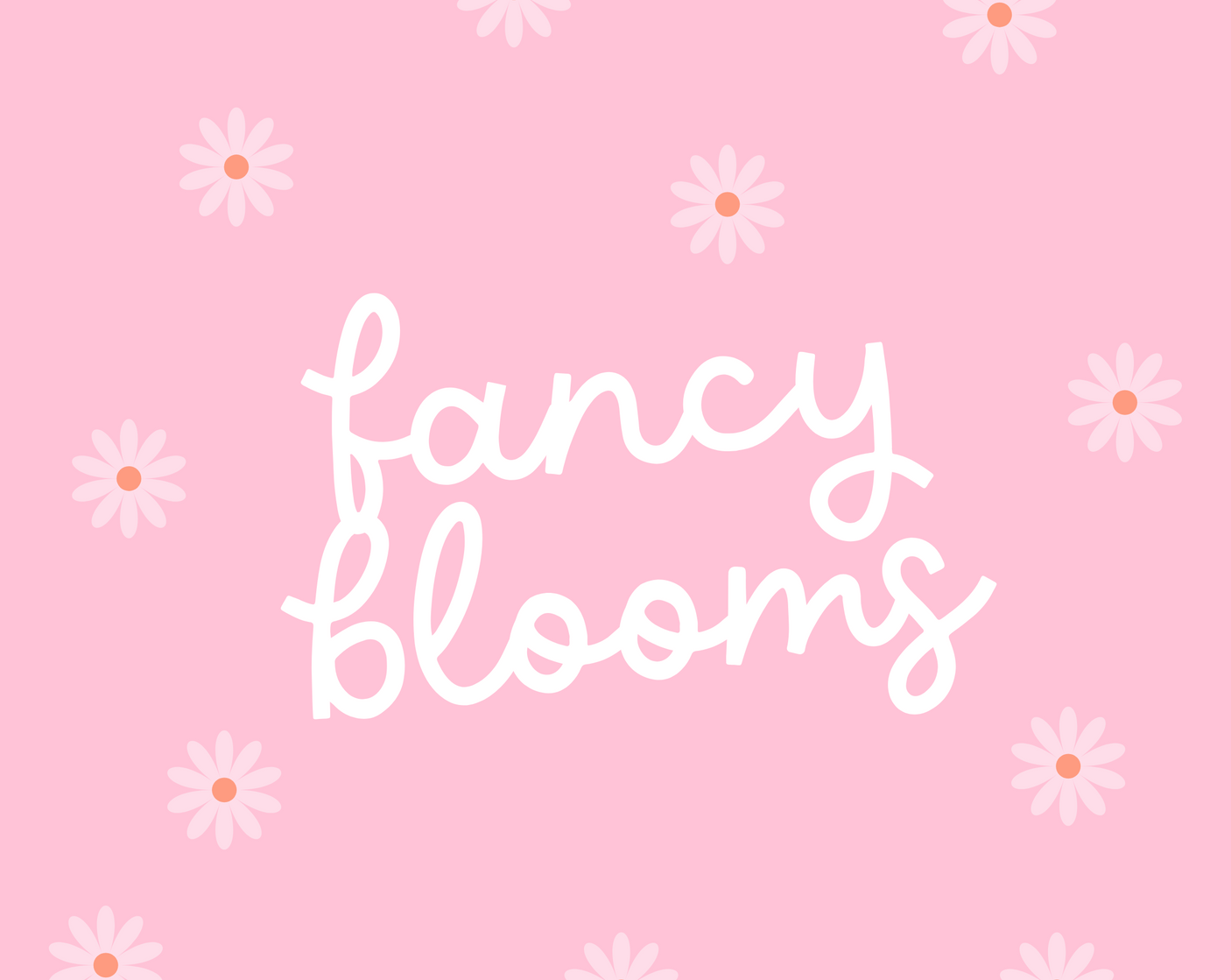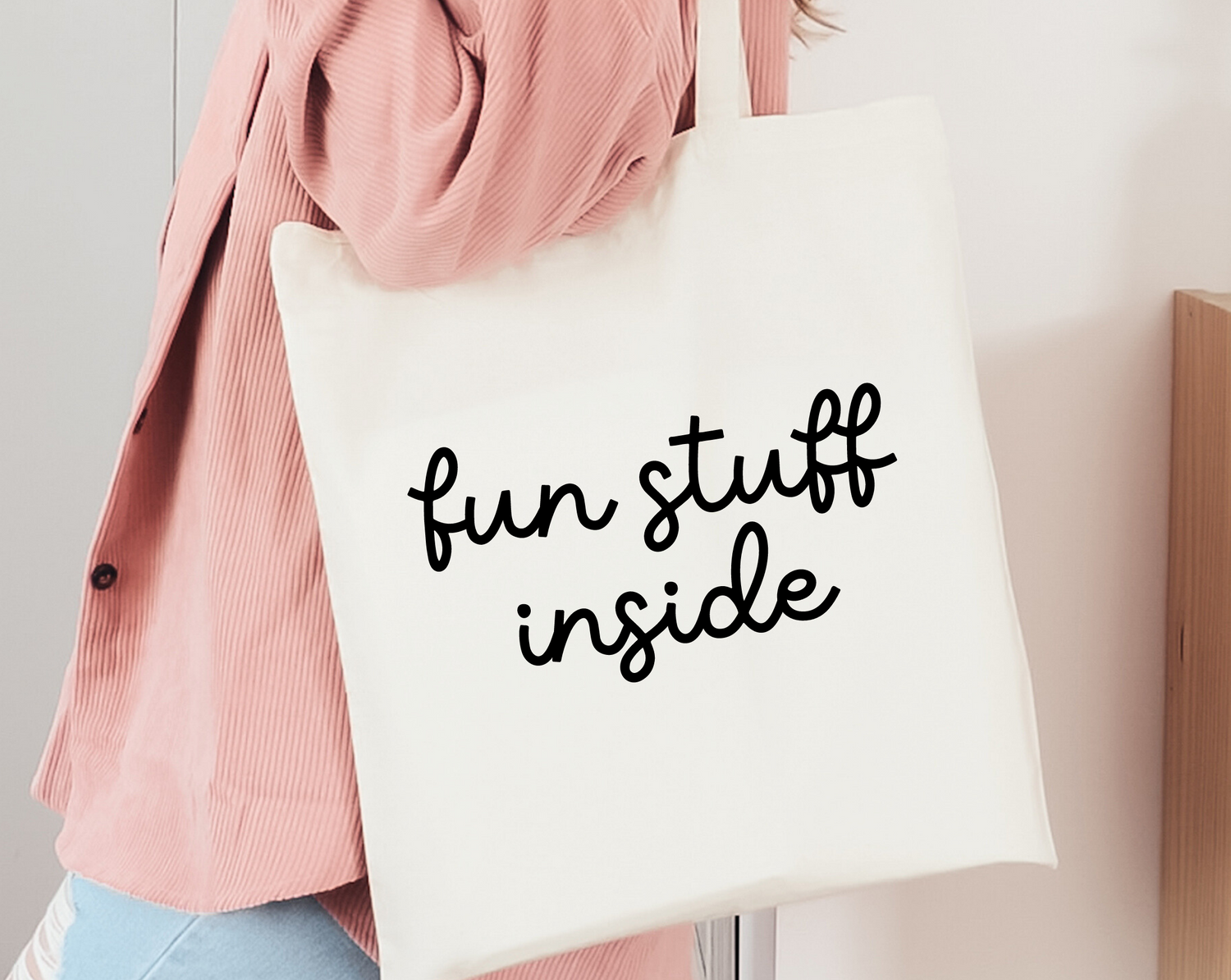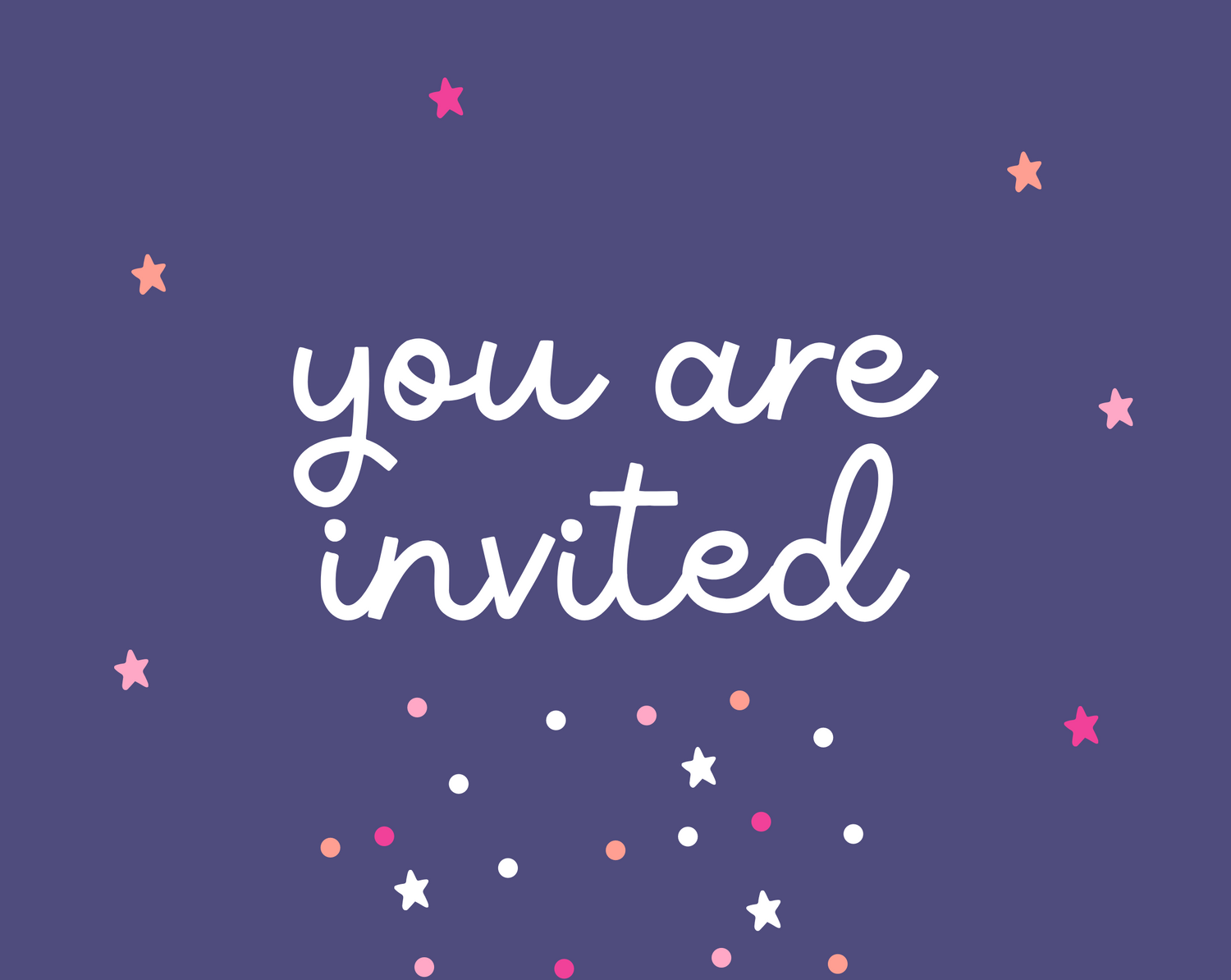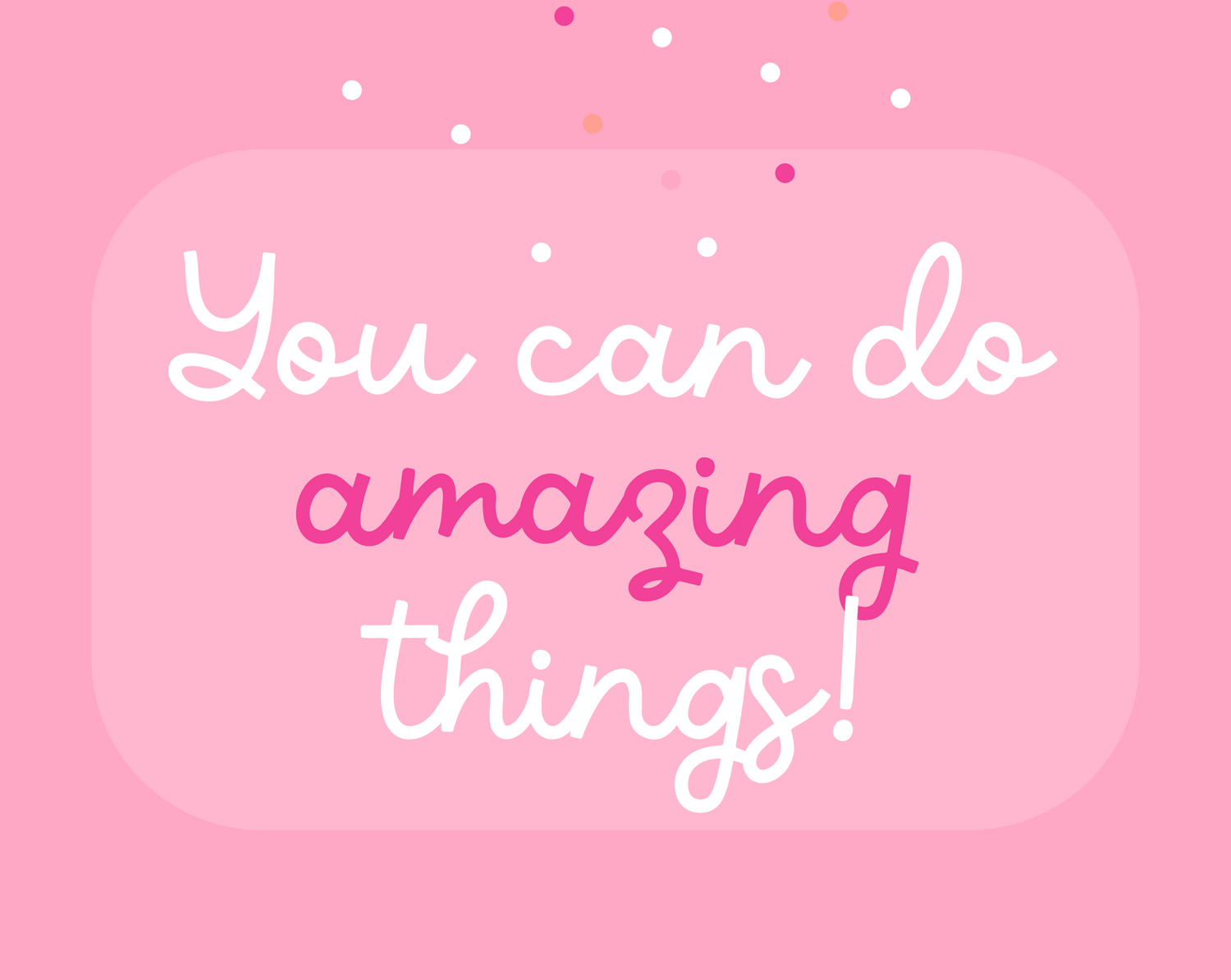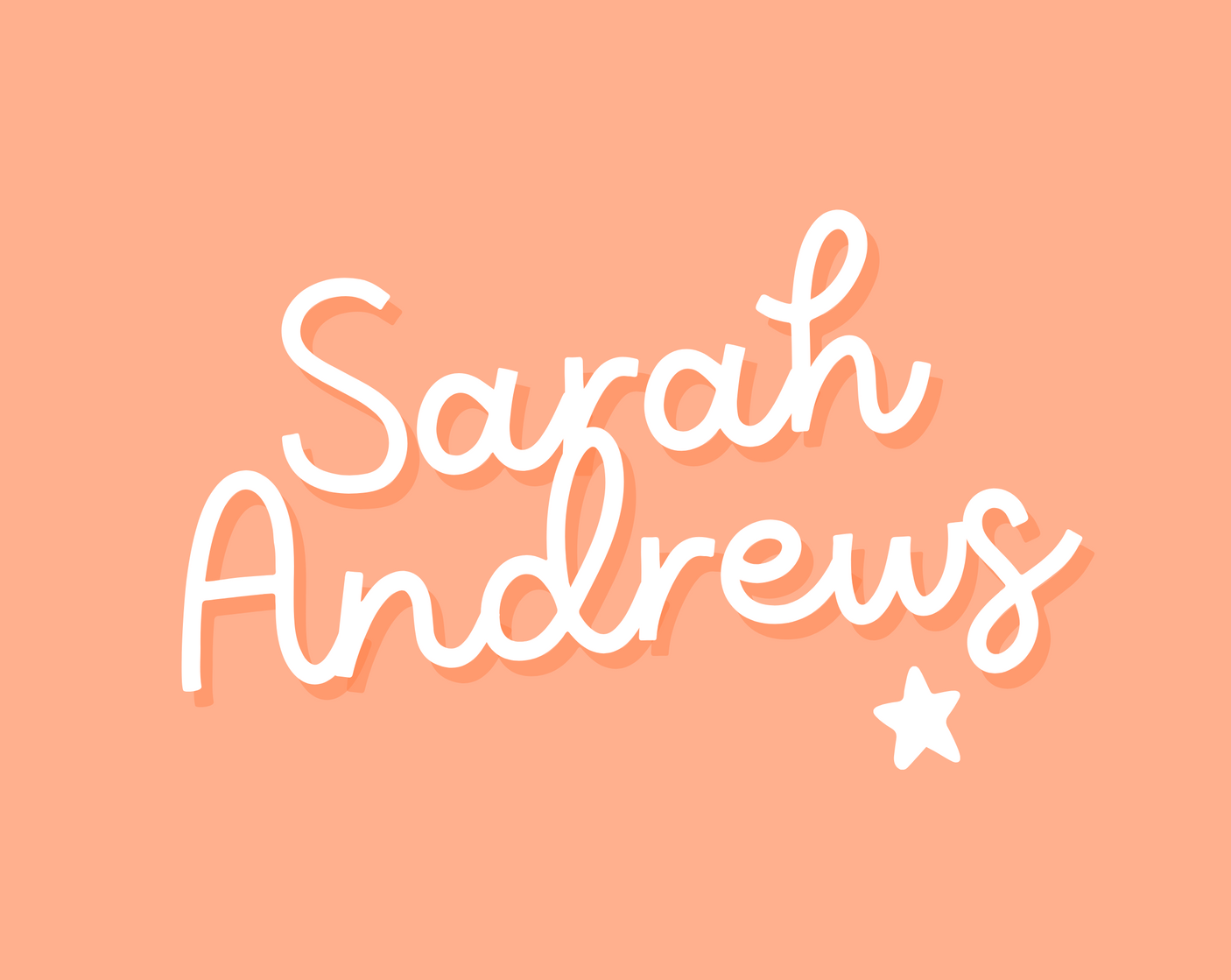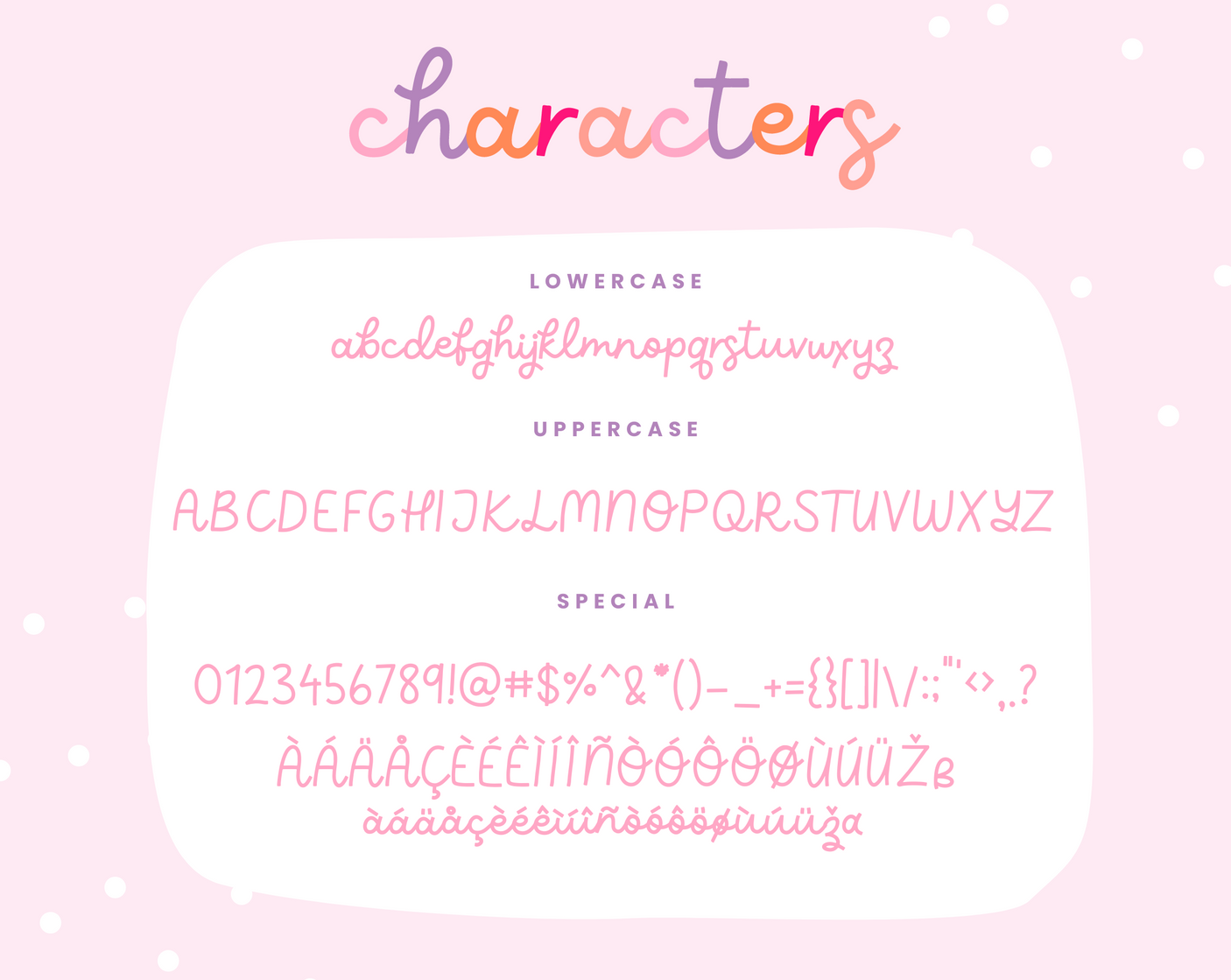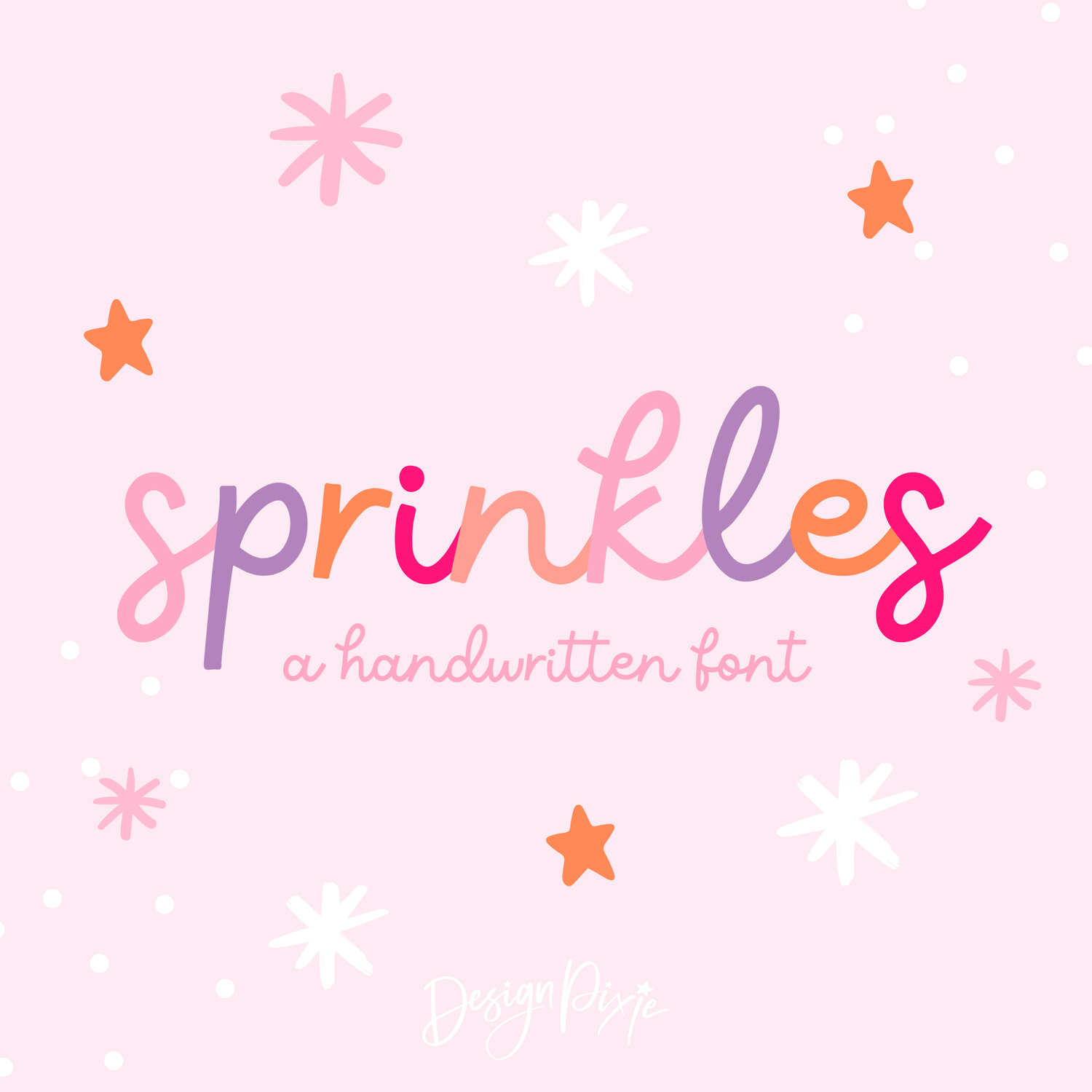
Sprinkles Font
Sprinkles is a handwritten monoline font by Blog Pixie. A great addition to add to your collection, this cute font can be used for Cricut, Procreate, Goodnotes, iPad and more. It’s a neat handwritten cursive font for crafty work and digital projects.